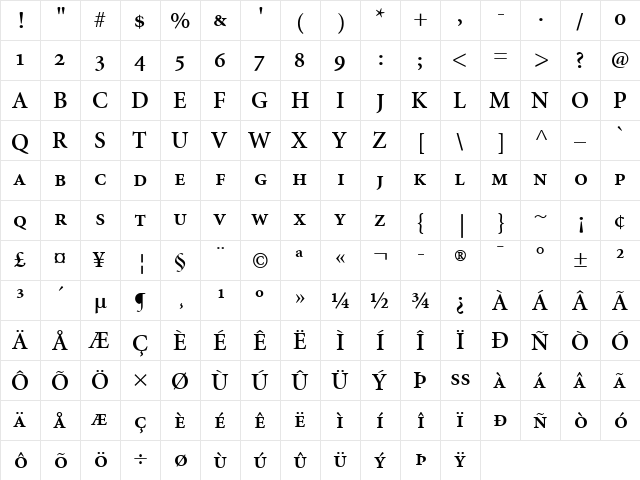
Minion RegularSC Bold Font Preview
Minion RegularSC Bold
Design Context for Minion RegularSC Typeface
Minion RegularSC takes a measured approach to typography — its balanced proportions and neutral character make it a reliable workhorse for both digital and print work. Its bold stroke weight gives it real presence on the page.